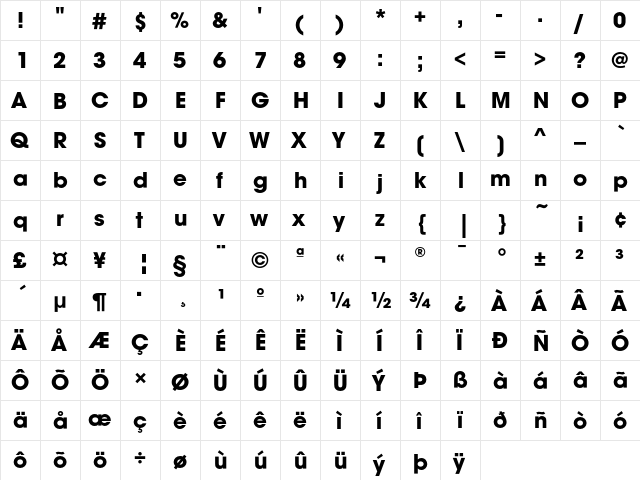
AvantGardEF Bold Font Preview
AvantGardEF Bold
Design Context for AvantGardEF Typeface
AvantGardEF is a composed and adaptable typeface that performs quietly and consistently across a wide range of design contexts. Its bold stroke weight gives it real presence on the page.
Pro Tip: Pair AvantGardEF with a font of contrasting weight or personality to build a more expressive typographic hierarchy.